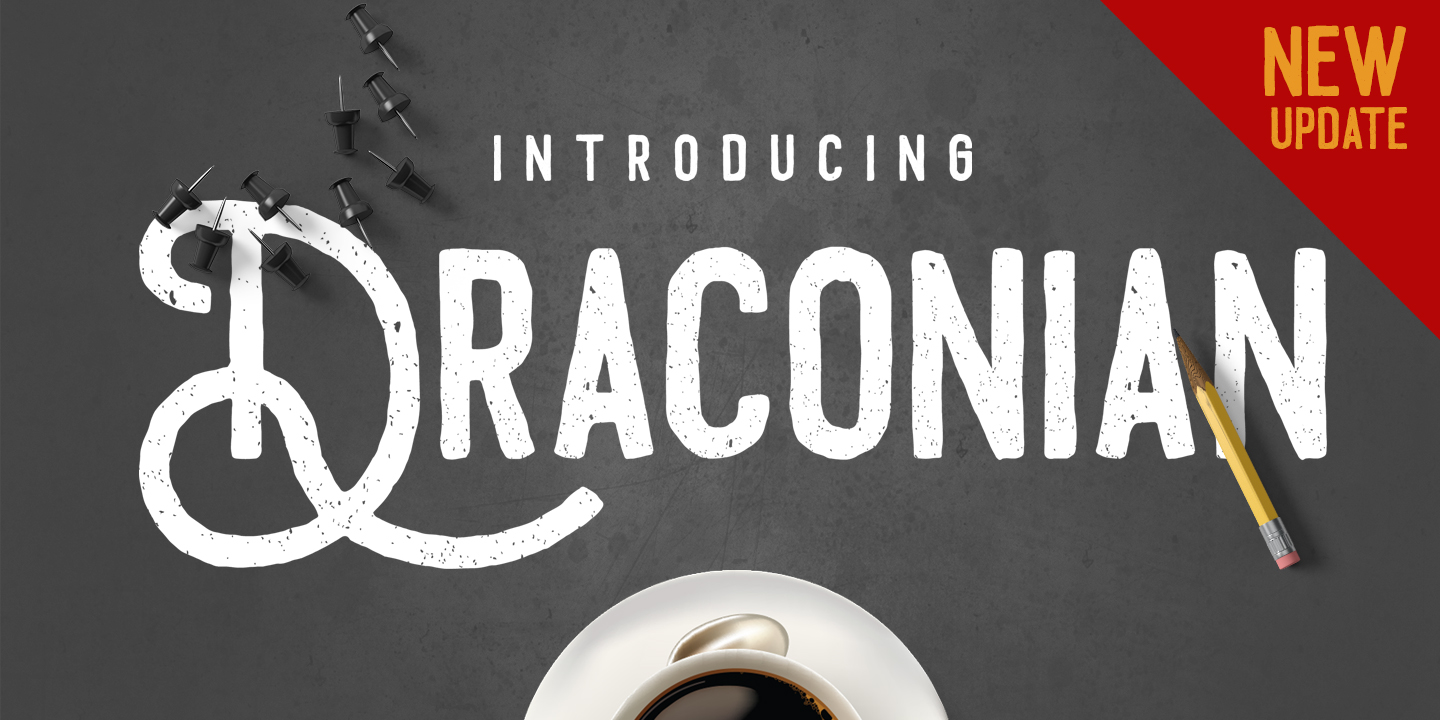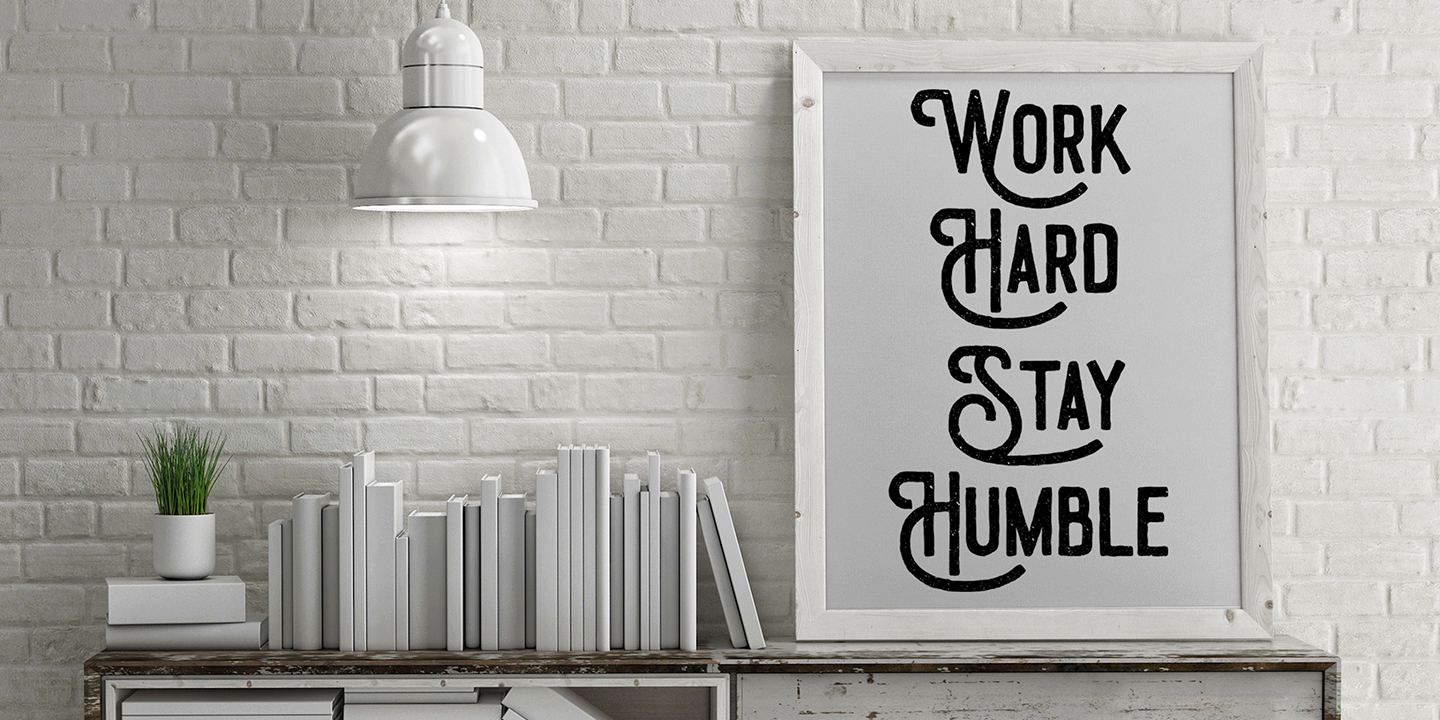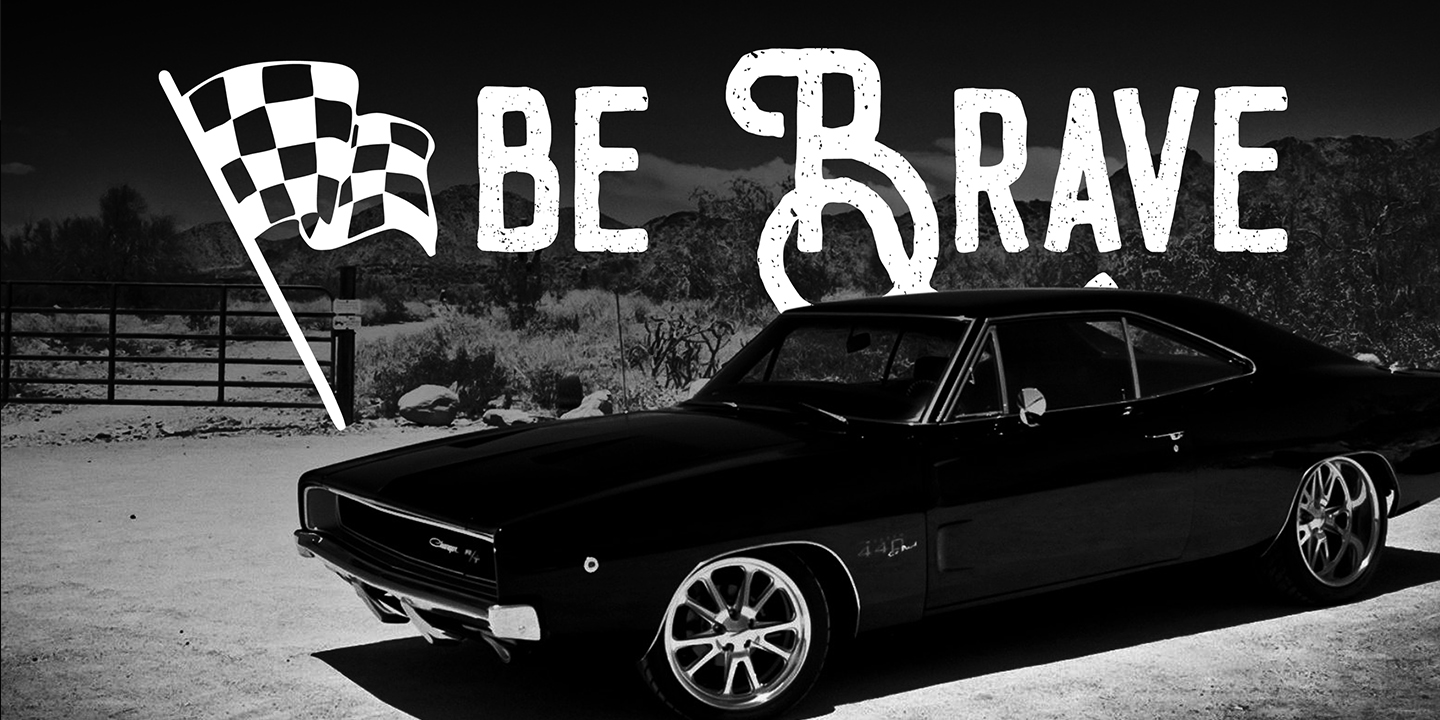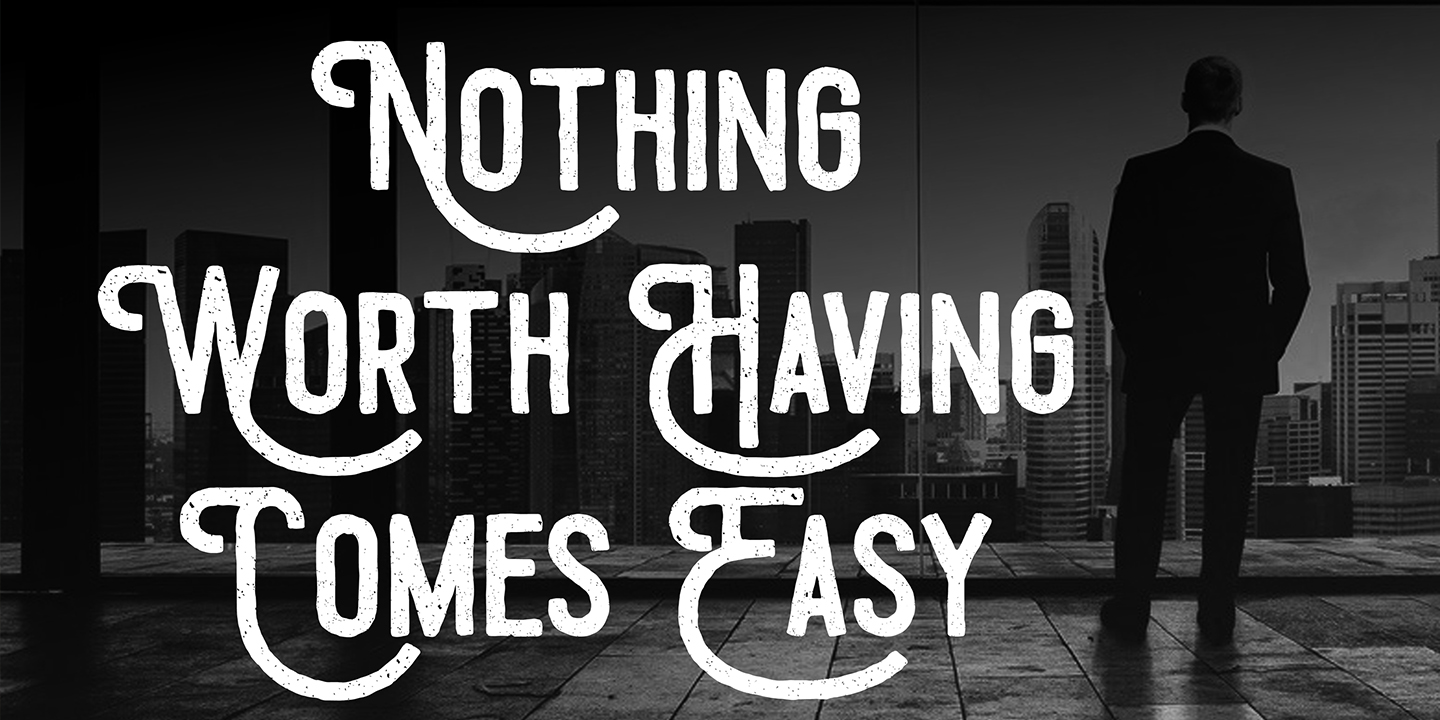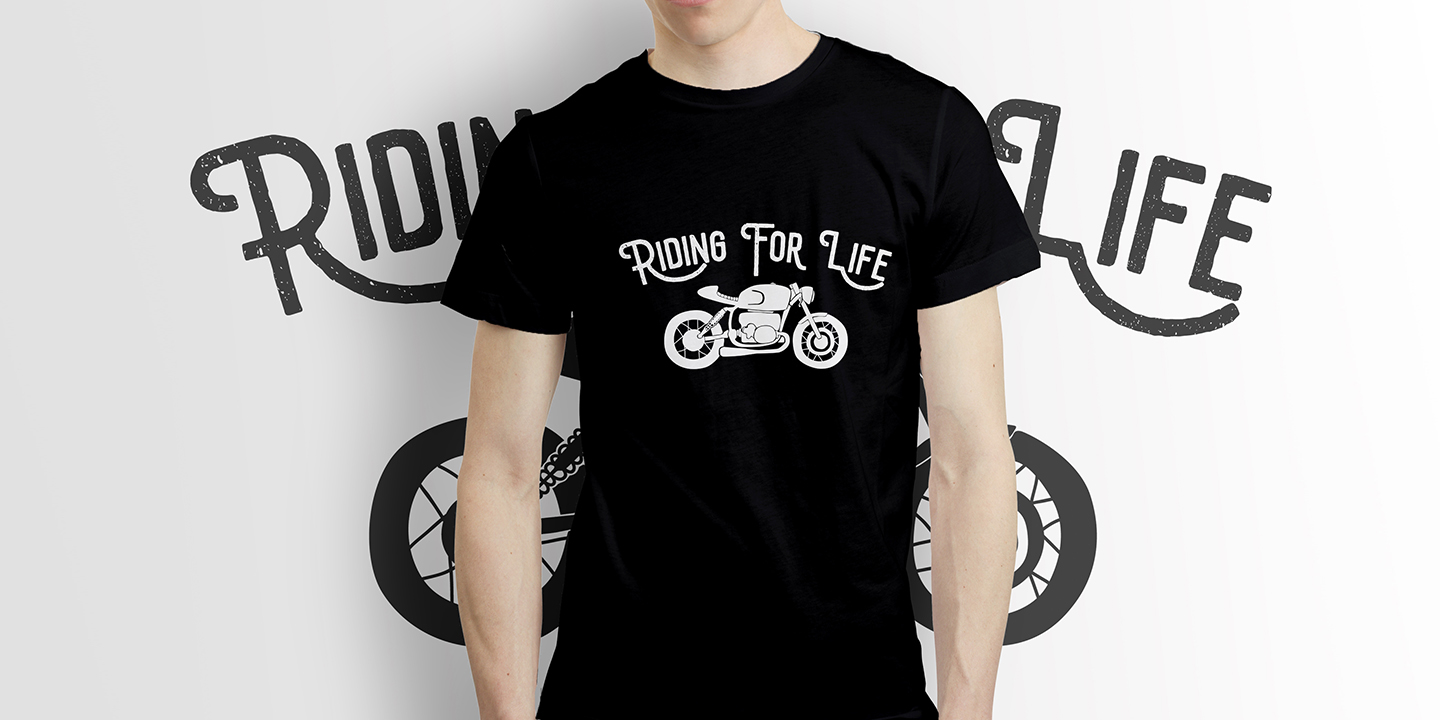
Draconian Font
Hello I'm really excited to introduce Draconian - NEW UPDATE with vintage american style font with cool character! Draconian perfect for poster design, book covers, merchandise, fashion campaigns, newsletters, branding, advertising, magazines, greeting cards, album covers, and quote designs and more. The OpenType features can be very easily accessed by using OpenType-savvy programs such as Adobe Illustrator and Adobe InDesign. (To access these awesome features in Microsoft Word, you’ll need to get comfortable with the advanced tab of Word’s font menu.